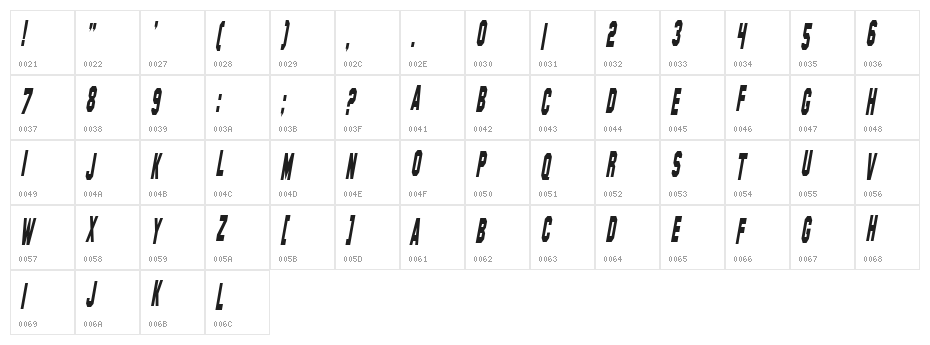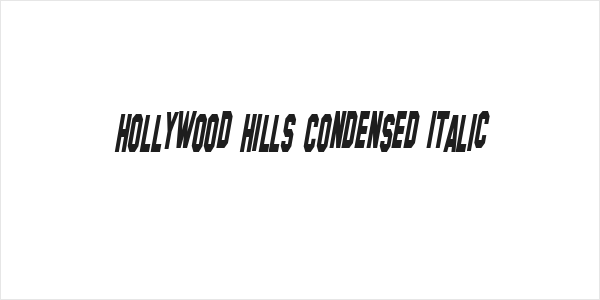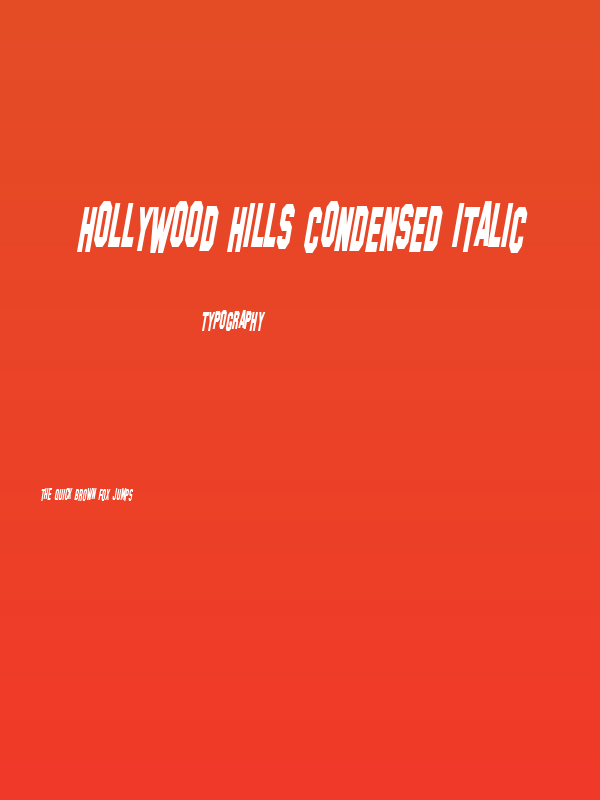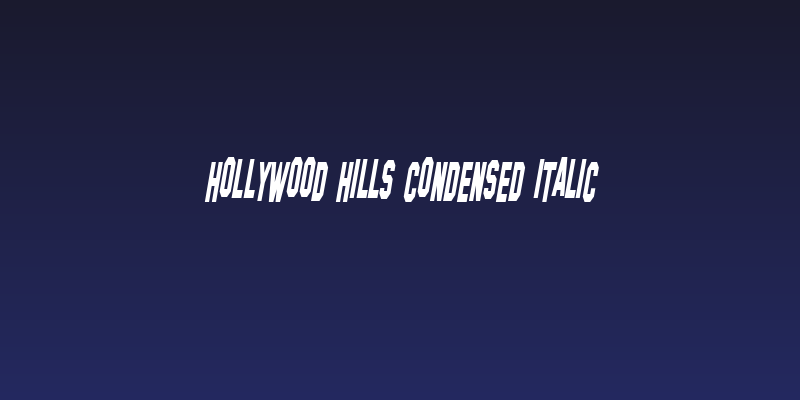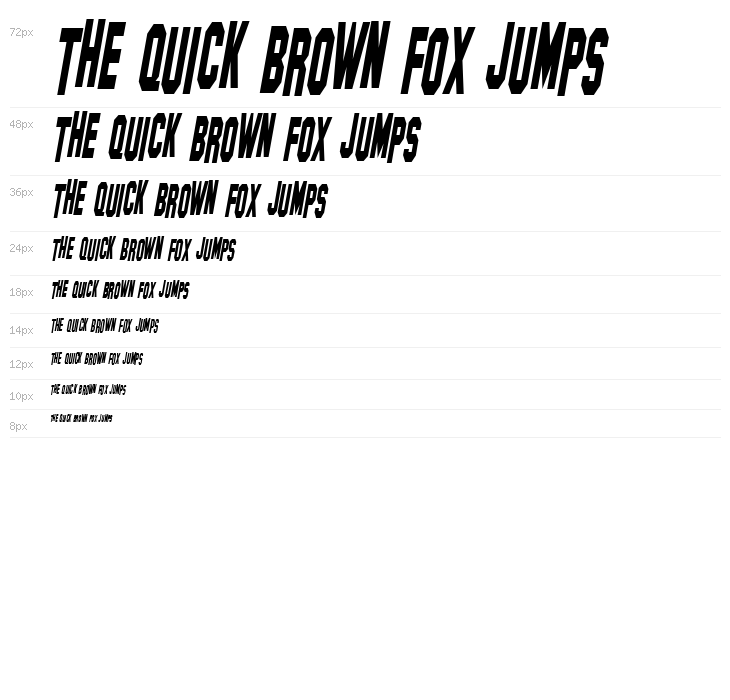
Hollywood Hills Condensed Italic Font
Hollywood Hills Condensed Italic Description
This font exhibits a bold and dynamic style with a condensed and italicized form. The characters are sharply angled, giving a sense of motion and energy. The uppercase and lowercase letters maintain a consistent slant, enhancing the italic effect. The numbers follow the same stylistic approach, ensuring uniformity across all characters. The special characters are designed to match the overall aesthetic, providing a cohesive look. This font's condensed nature allows for efficient use of space while maintaining readability.
| Proposed Projects | Ideal for movie posters, sports branding, dynamic advertisements, and any project requiring a bold statement. |